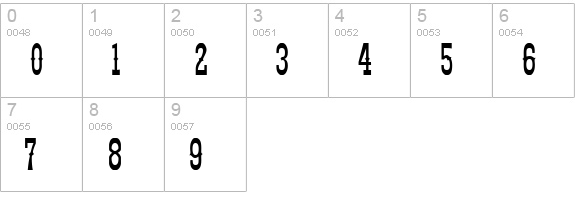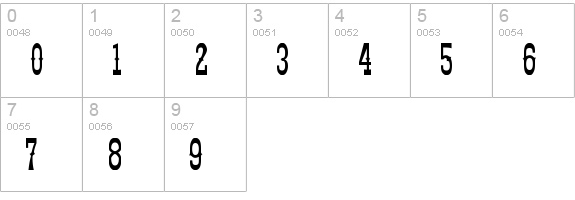
KyhotaBarbed Font Details
Introducing KyhotaBarbed font, a striking and unique typeface that combines elegance with a touch of edginess. This font features sharp barbed elements that bring a sense of energy and modernity to any design project. The intricate details of KyhotaBarbed font make it perfect for creating eye-catching headlines, logos, and branding materials. Best of all, KyhotaBarbed font is available for free download at FontsMarket.com. Whether you're a graphic designer looking to add a bold statement to your work or a content creator seeking a fresh and distinct look for your projects, KyhotaBarbed font is sure to impress. Embrace the creativity and versatility of this font by incorporating it into your designs today!